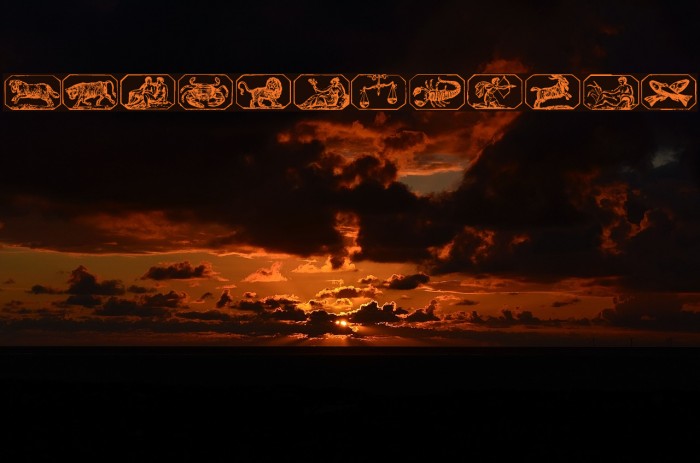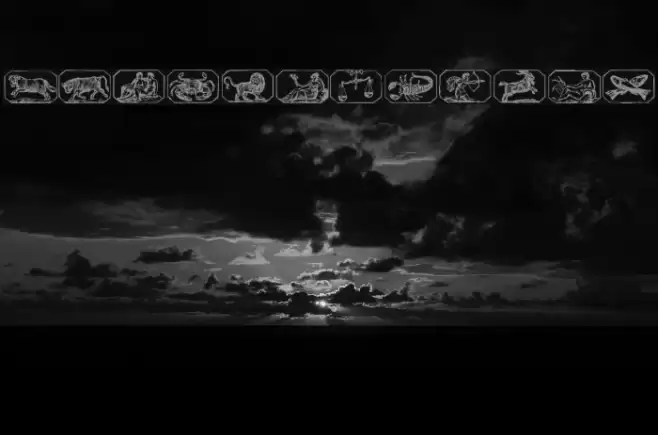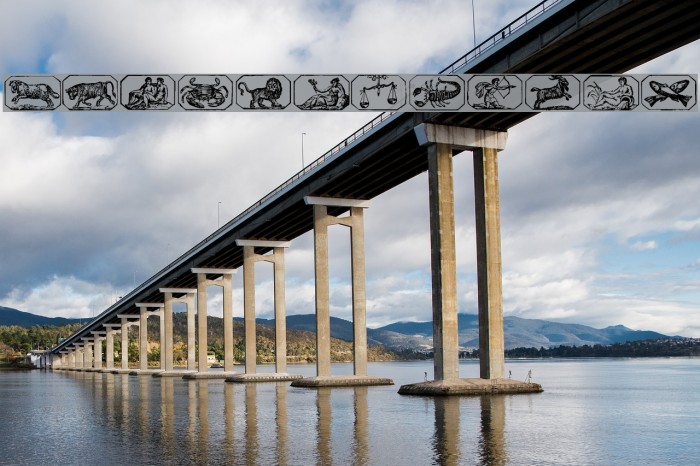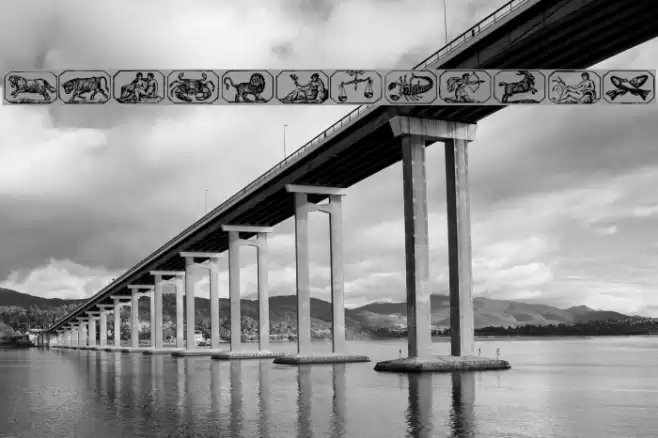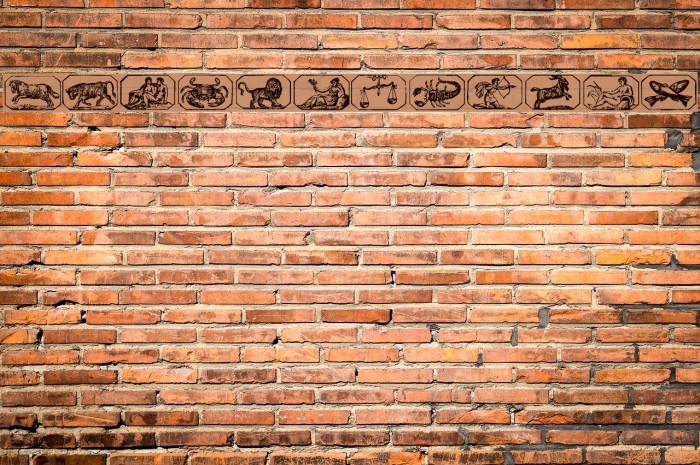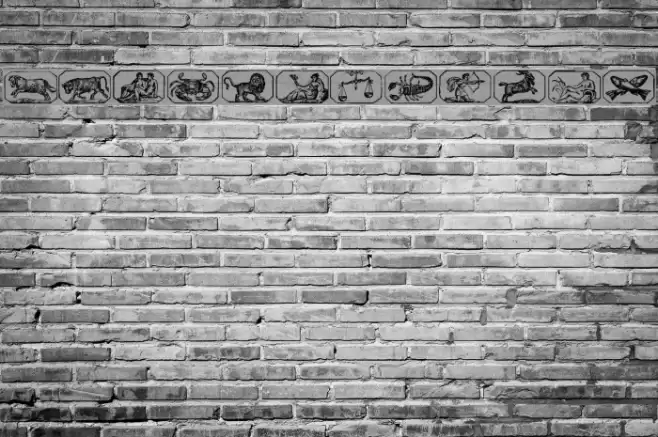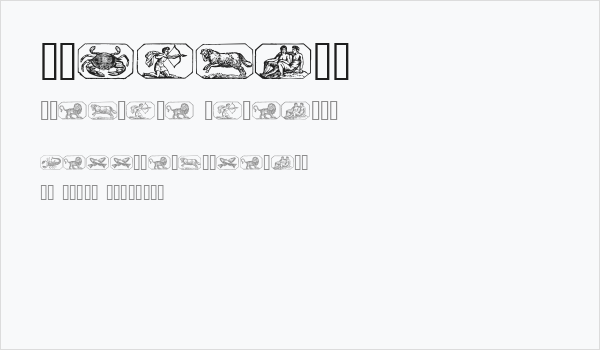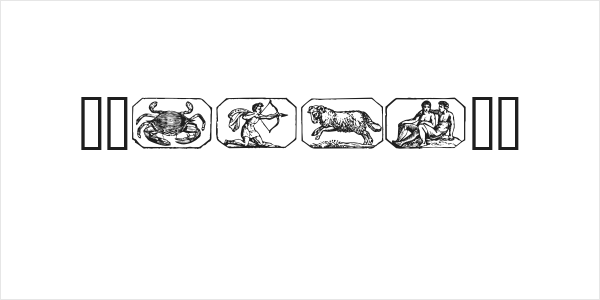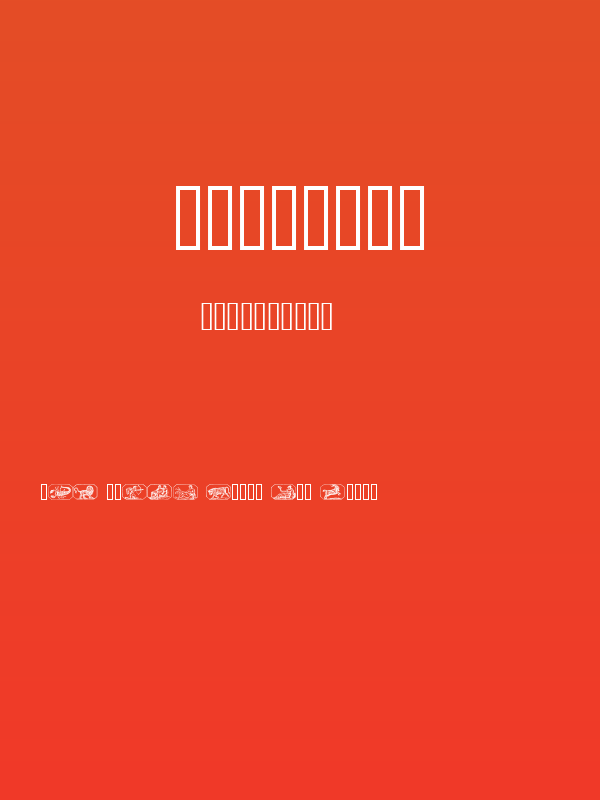
Zodiac00 Font
Zodiac00 Description
This is not a valid font. The image contains zodiac symbols instead of a traditional alphabet or numerical characters. Each symbol represents a different zodiac sign, depicted in a decorative and illustrative style. The symbols are enclosed in rectangular frames, adding a structured appearance to the overall design. The intricate details within each symbol suggest a focus on astrological themes rather than typographic functionality.
| Use Case | Decorative art, thematic designs |
| Proposed Projects | Astrology-themed designs, horoscope publications, decorative art pieces. |